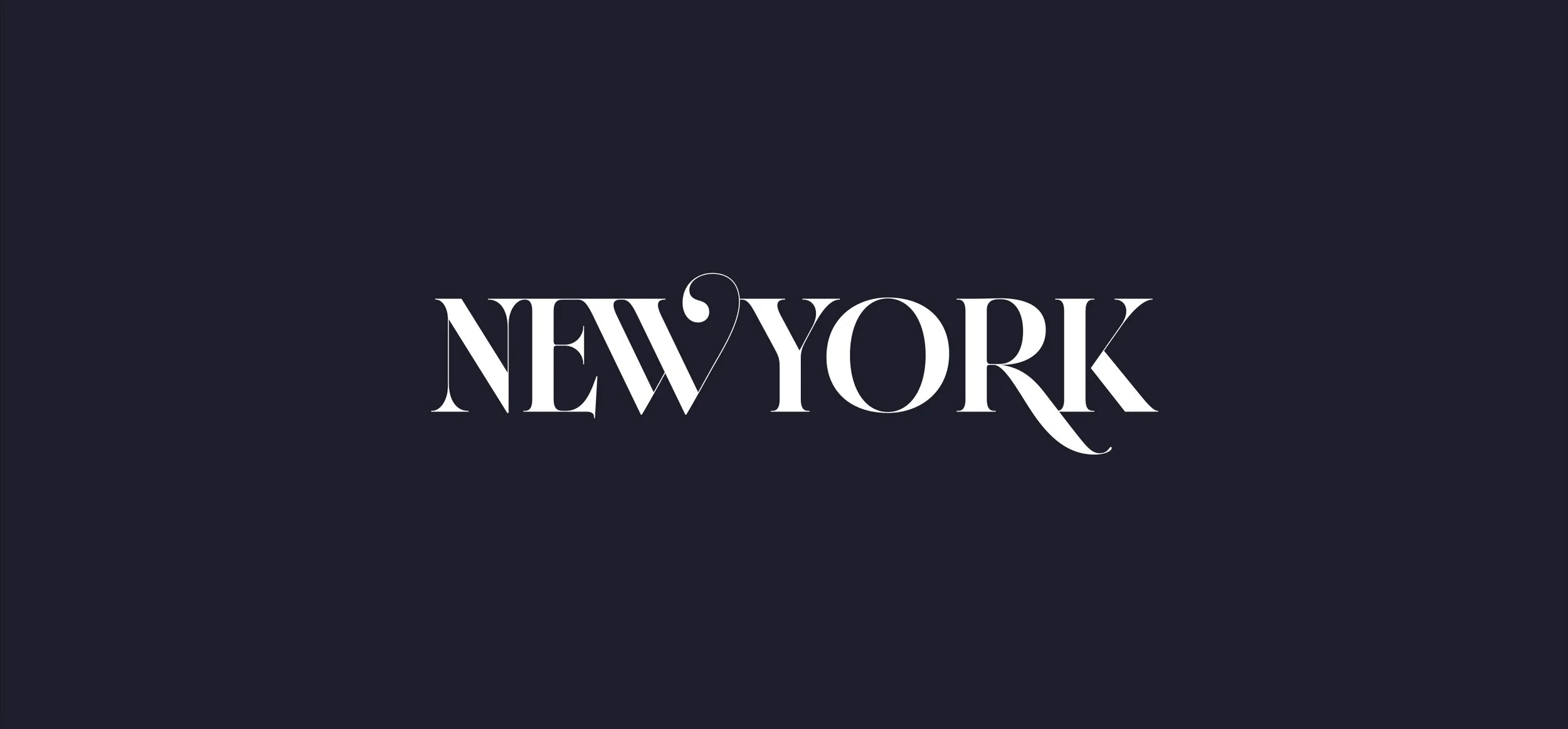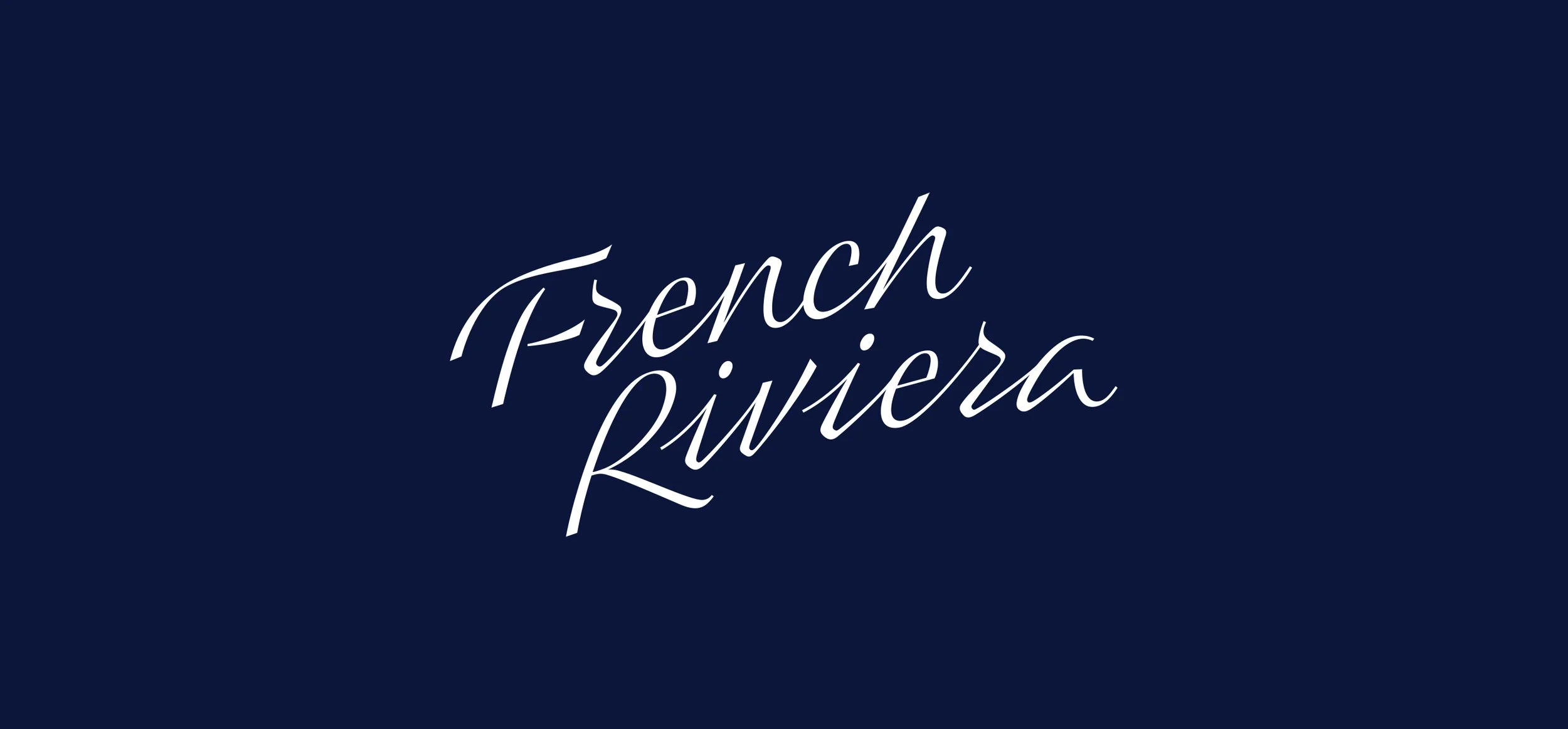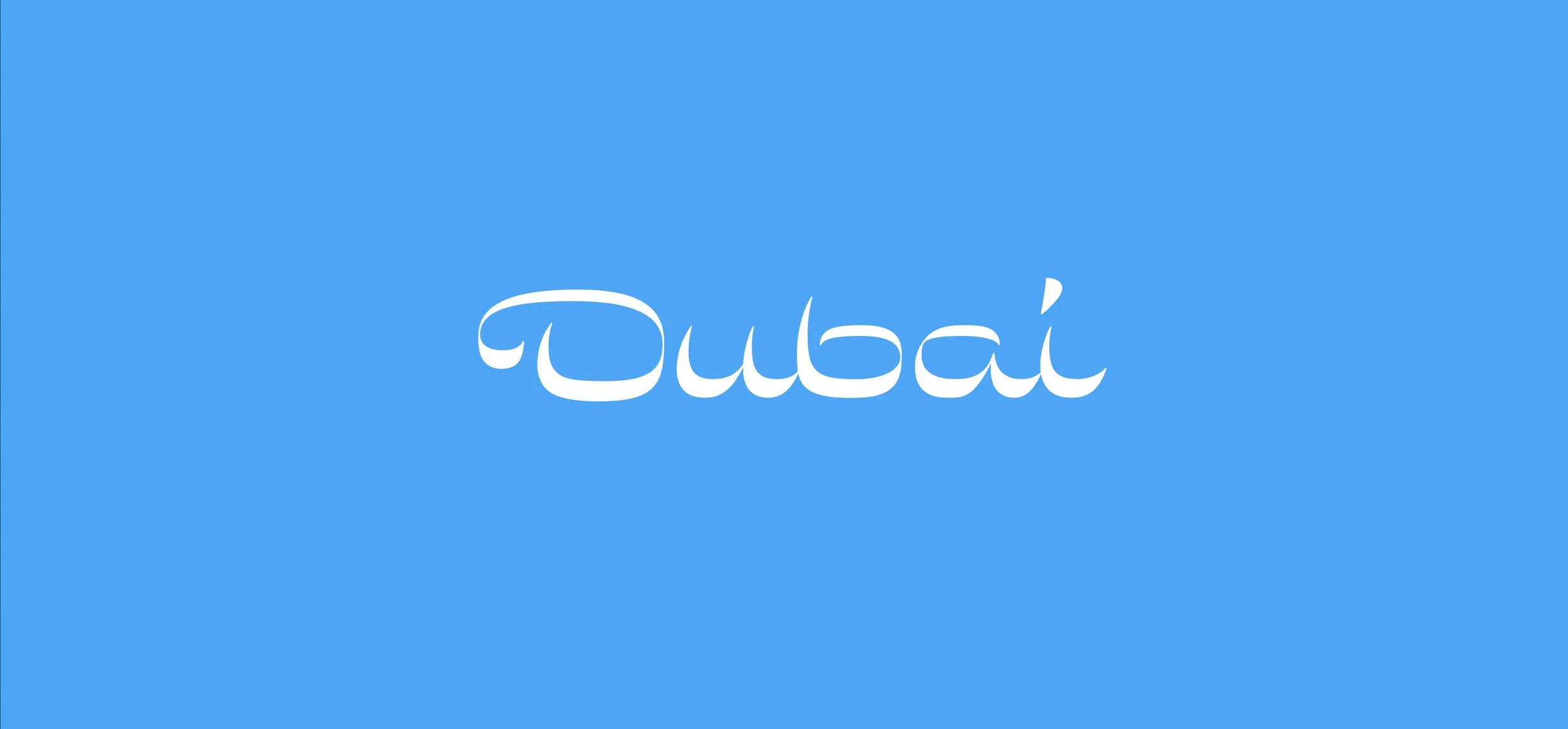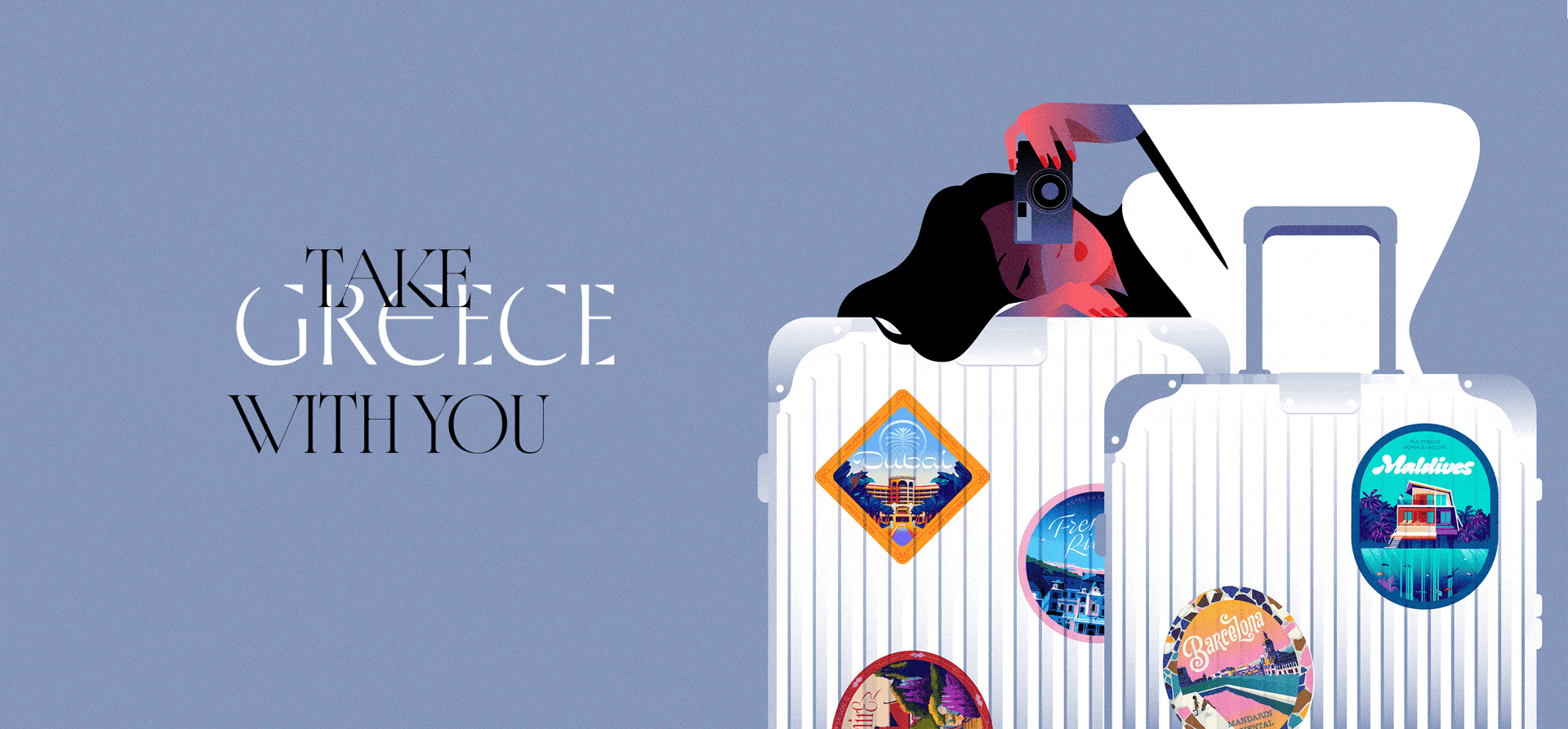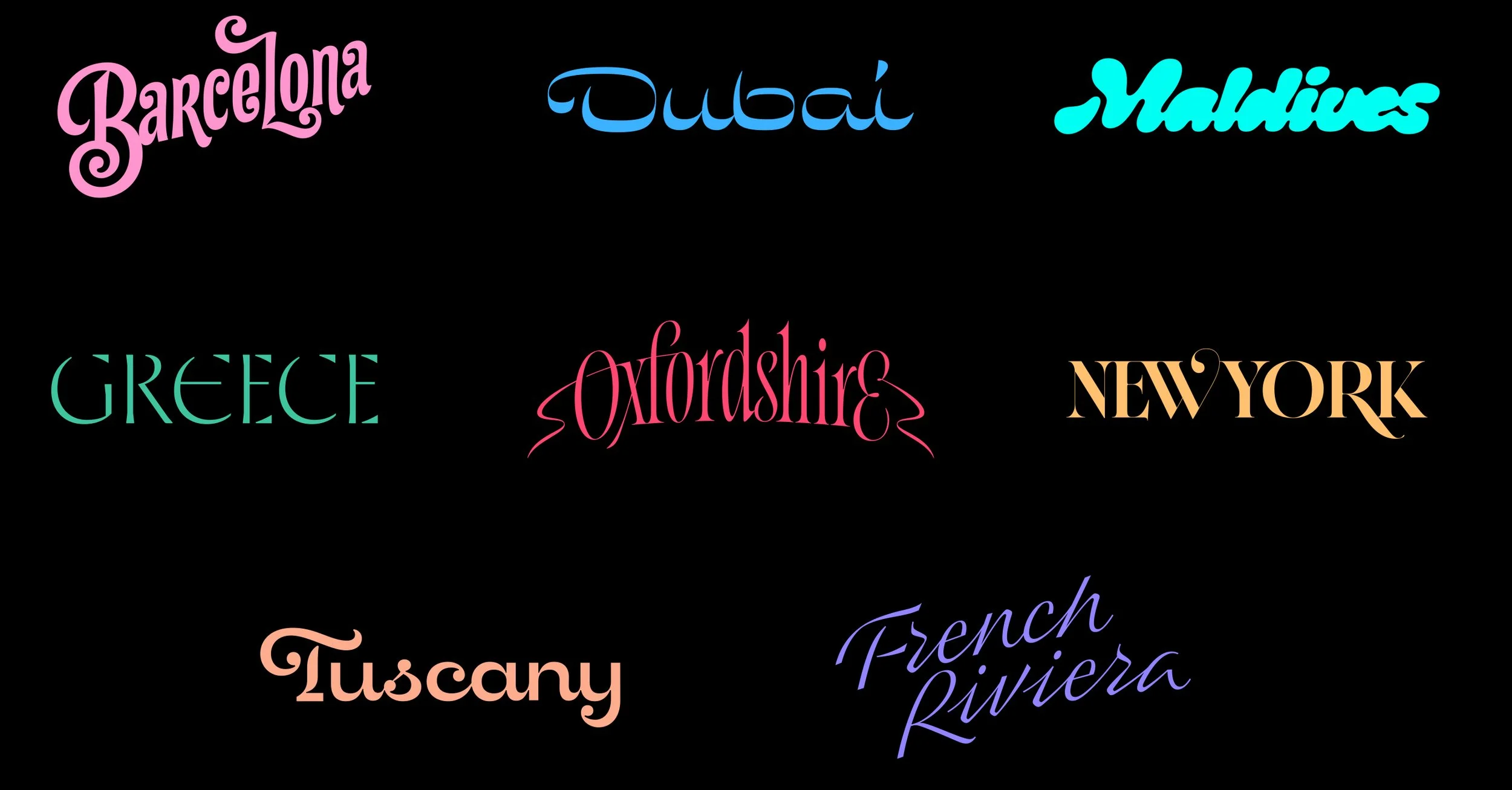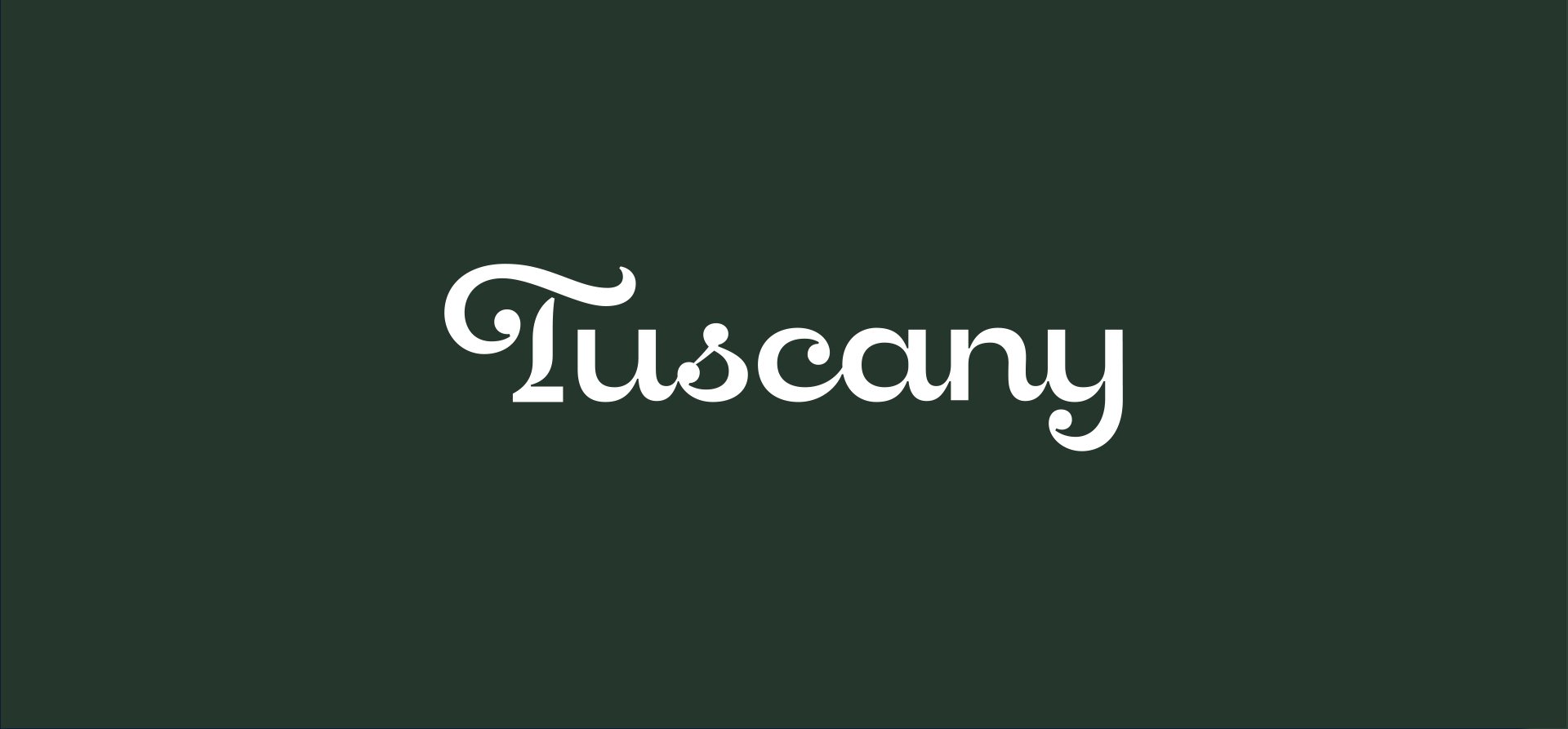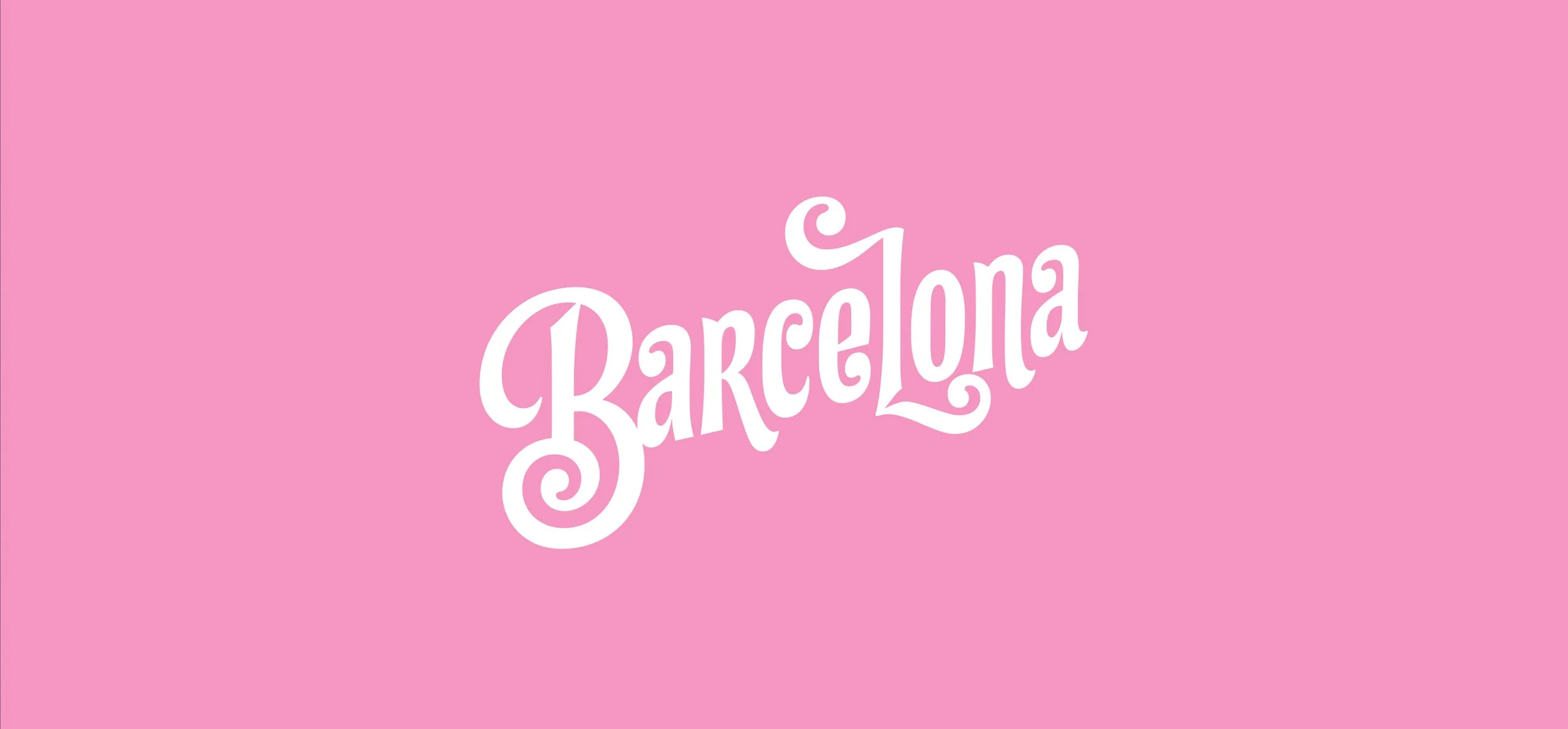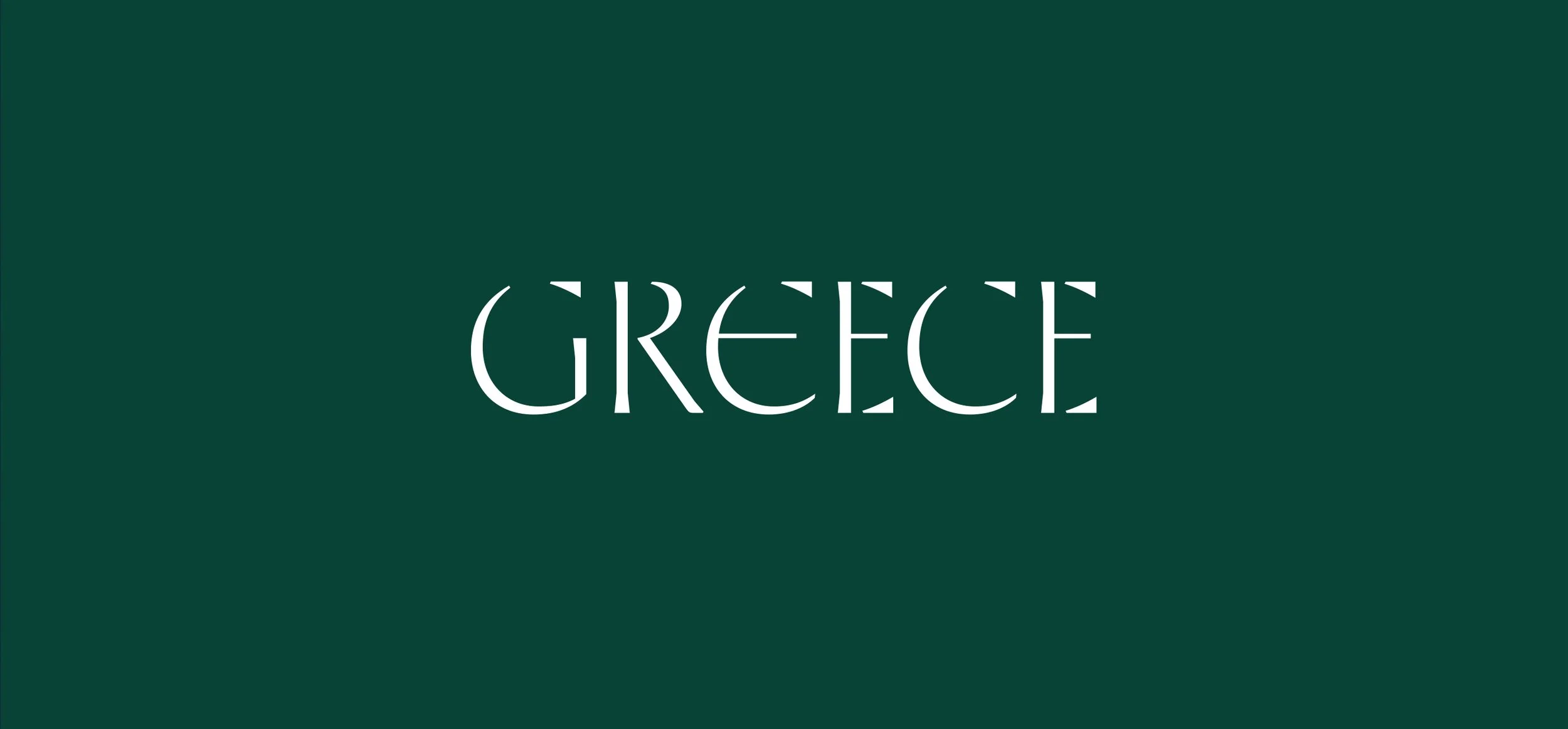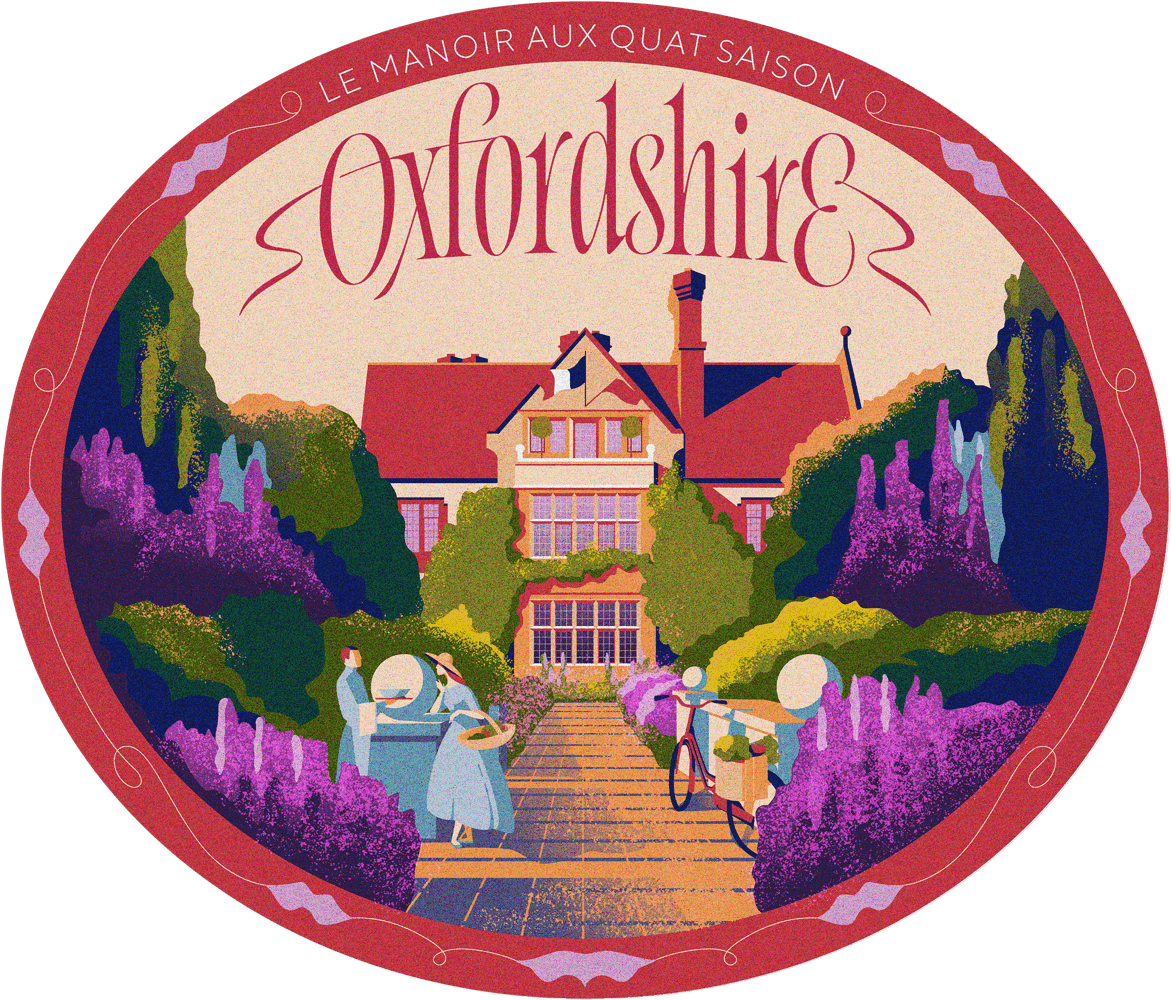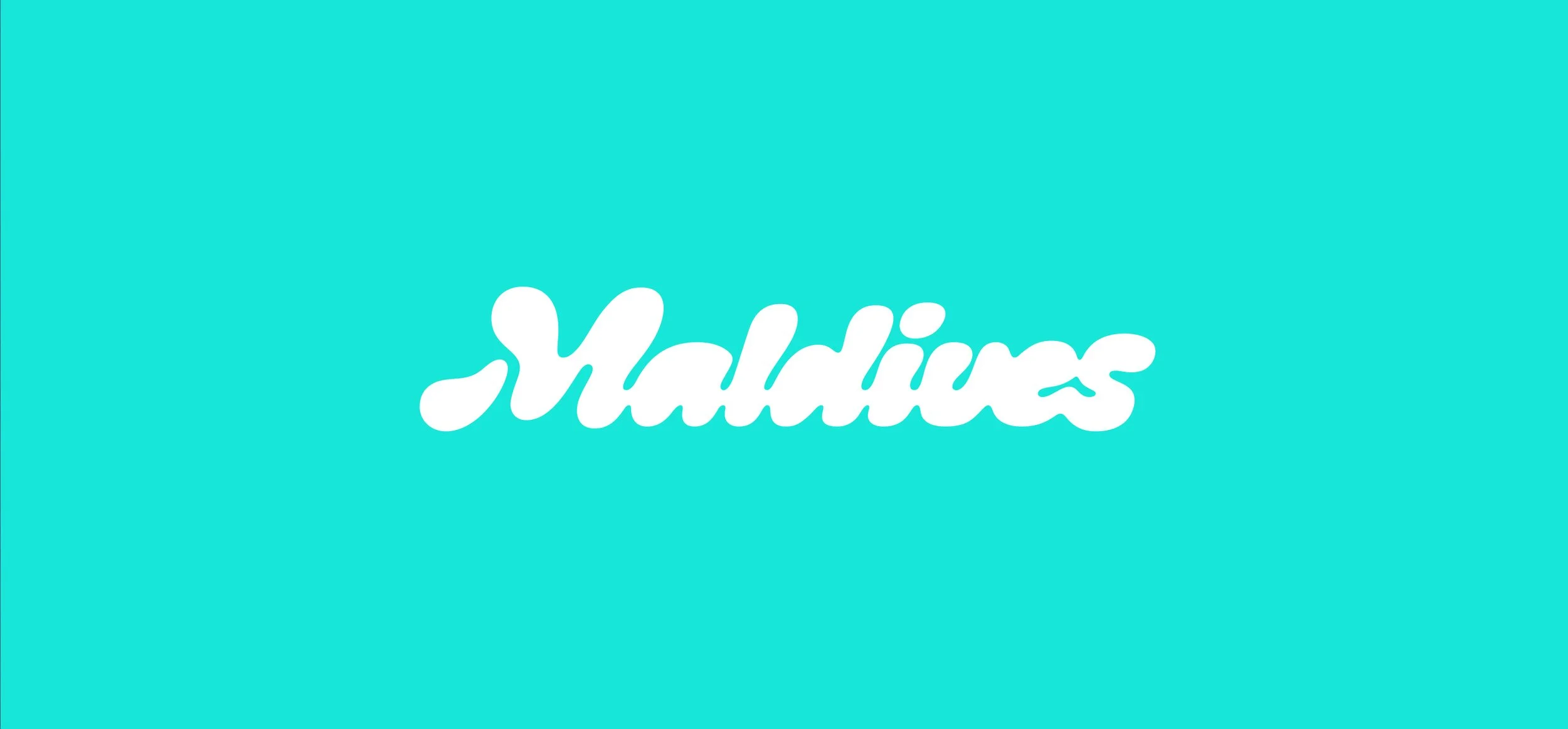
Carry On Sticker Series
In this collaborative project, we aimed to capture the essence of each wonderful place. The color palettes, the hotels pictured, and the lettering styles chosen — all of them are meant to create a memory snapshot, kept as a small sticker on your luggage.